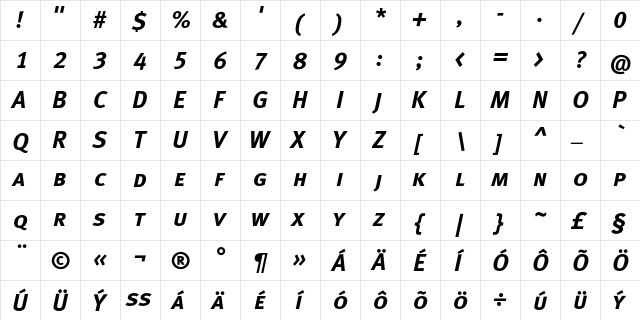
MetaBoldCELF ItalicCaps
Design Context for MetaBoldCELF Typeface
MetaBoldCELF takes a measured approach to typography — its balanced proportions and neutral character make it a reliable workhorse for both digital and print work. The dynamic lean of this cut emphasises speed and emphasis in any layout. The heavy weight commands attention and anchors typographic hierarchies.